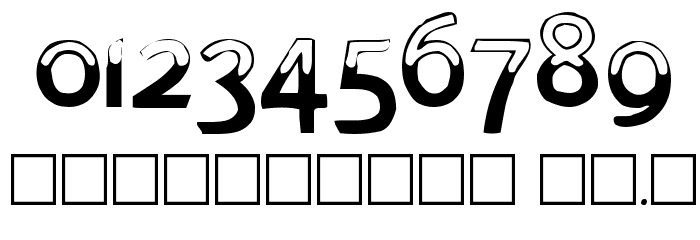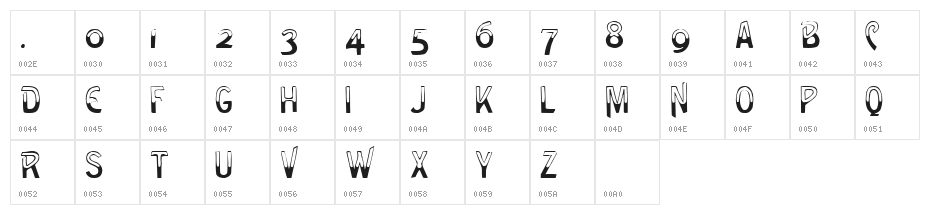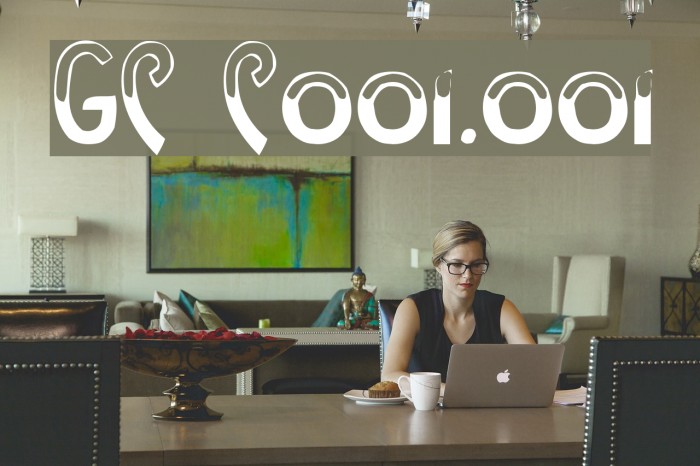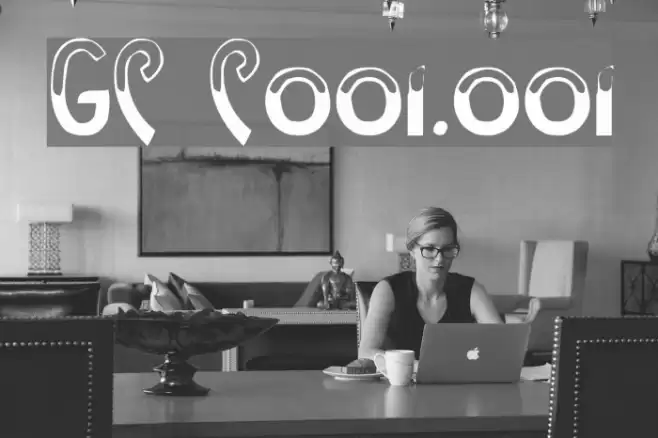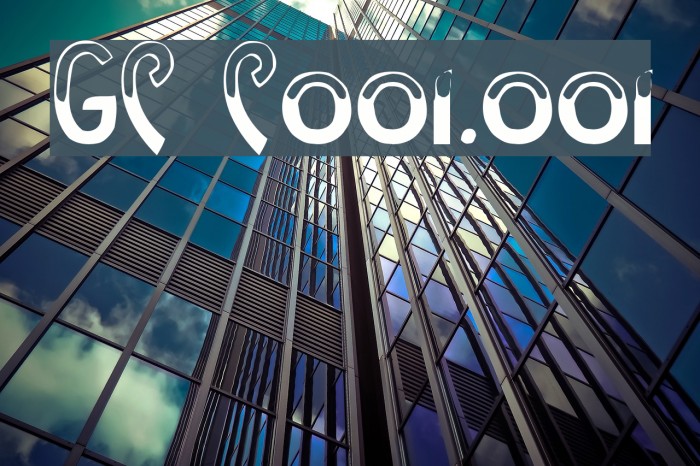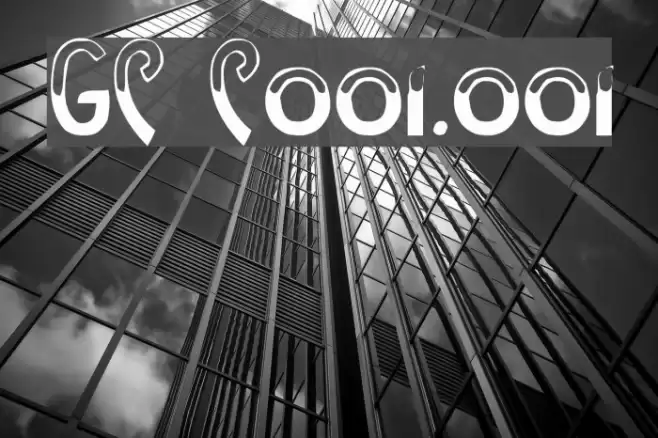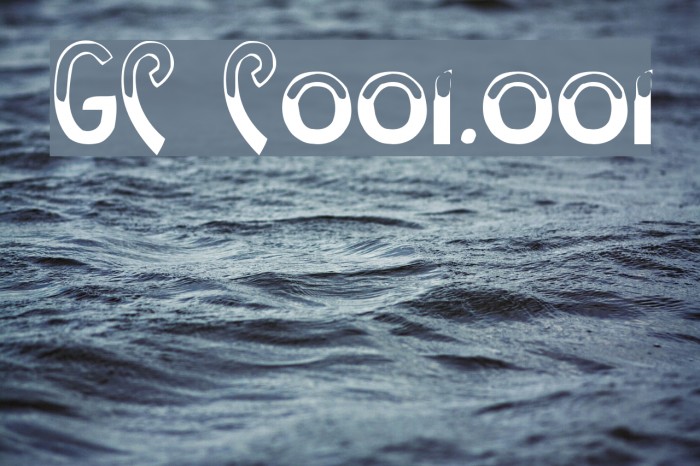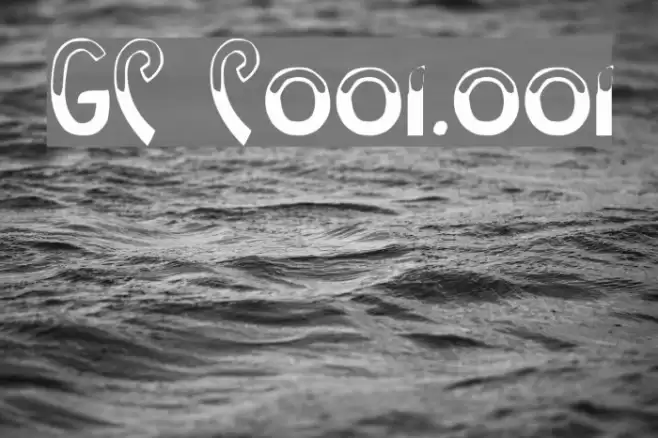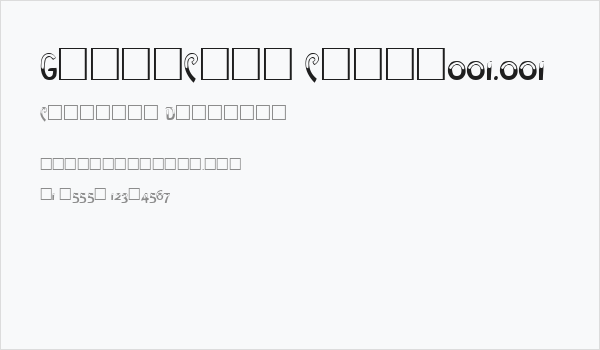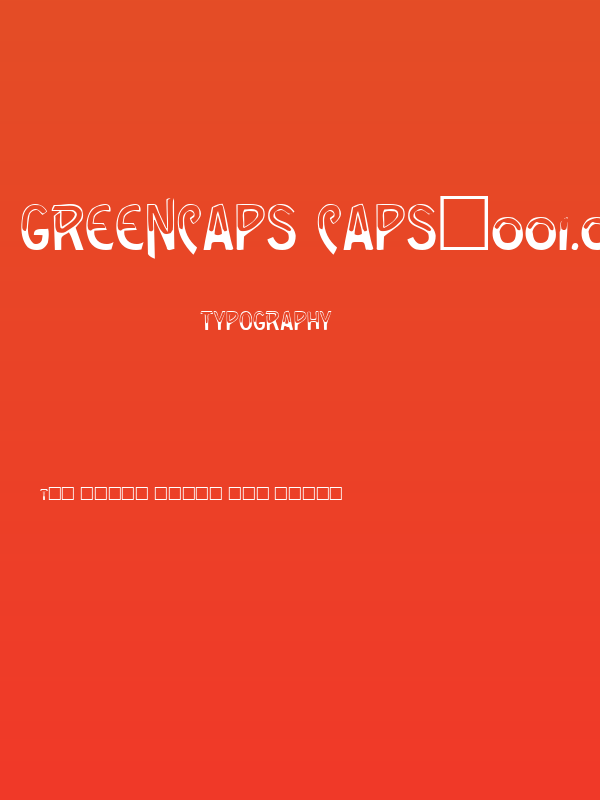
GreenCaps Caps:001.001 Font
GreenCaps Caps:001.001 Description
This font features a bold and playful design with a three-dimensional effect, giving each character a sense of depth and shadow. The uppercase letters have a unique, artistic flair with varying stroke widths and angles, creating a dynamic and eye-catching appearance. The numbers follow a similar style, maintaining the bold and shadowed look. The overall design is reminiscent of graffiti or street art, making it suitable for creative and informal projects. The font's distinct style makes it stand out, perfect for grabbing attention.
| Proposed Projects | Ideal for posters, logos, street art designs, and creative branding projects. |